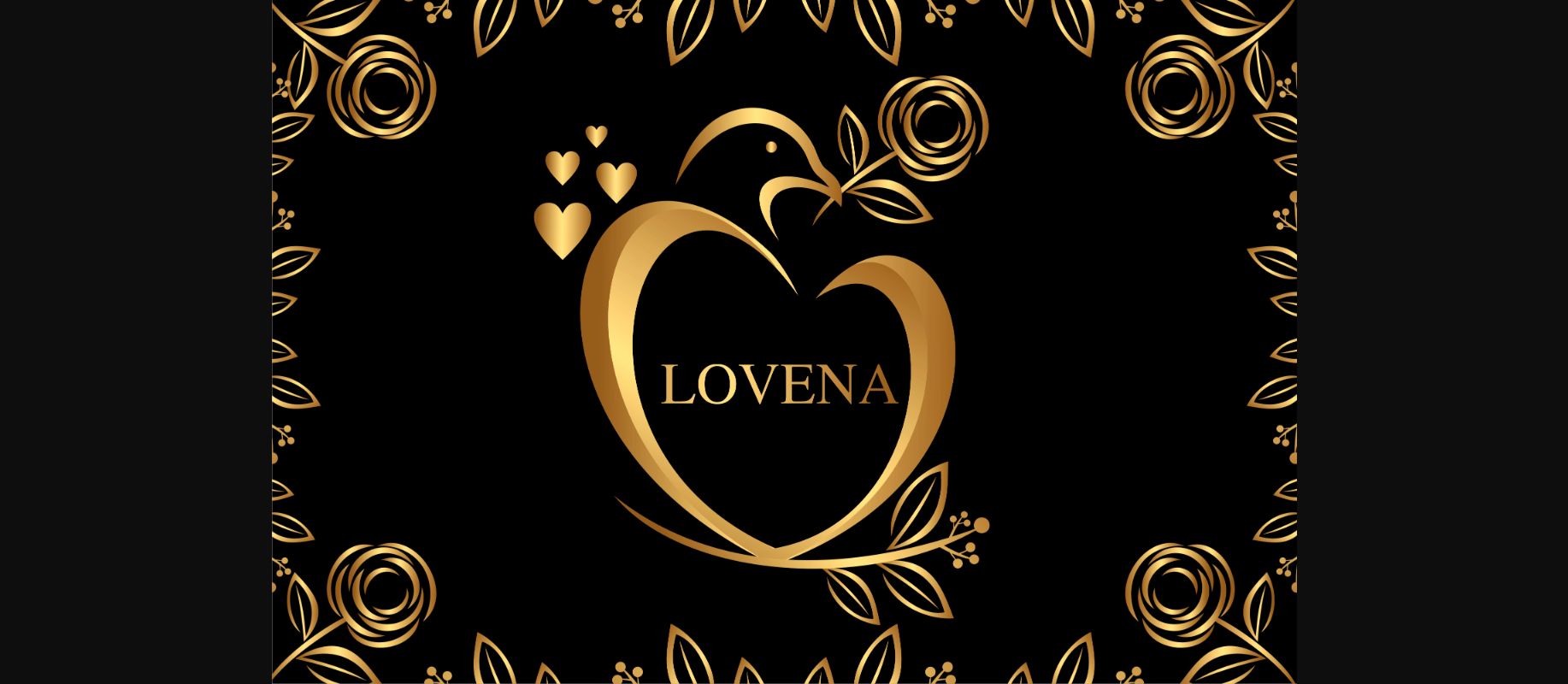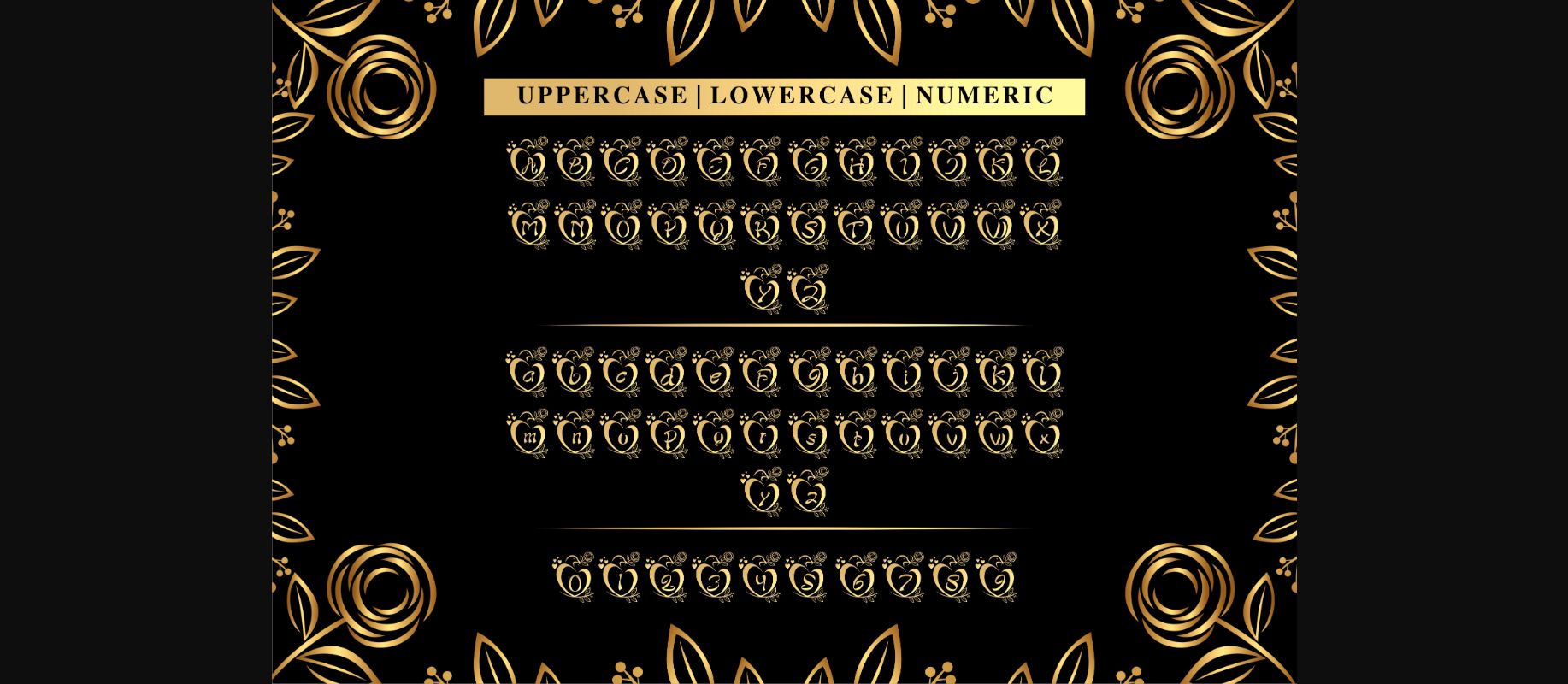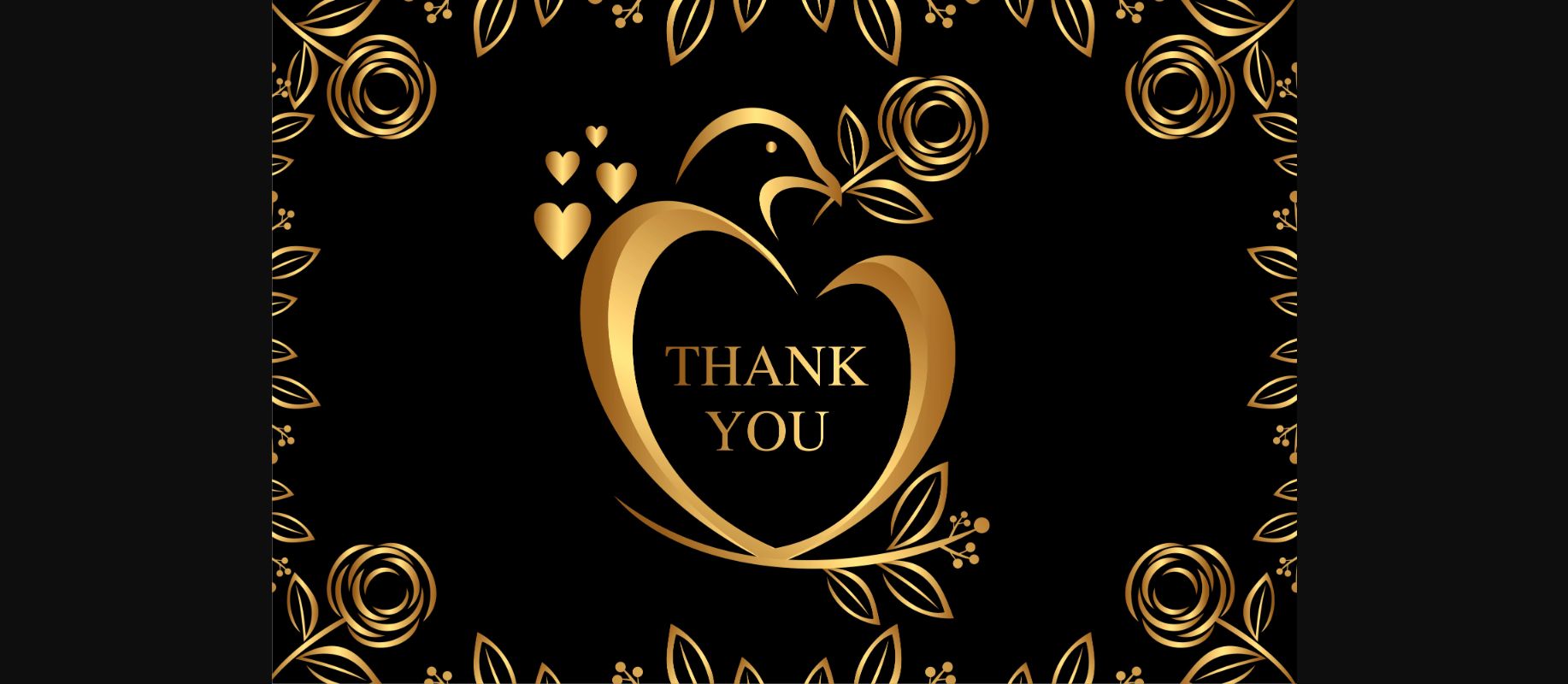
About Loveena Monogram Font
Loveena Monogram is a romantic and elegant decorative font. It looks stunning on wedding invitations, thank you cards, quotes, greeting cards, logos, business cards and every other design which needs a handwritten touch.